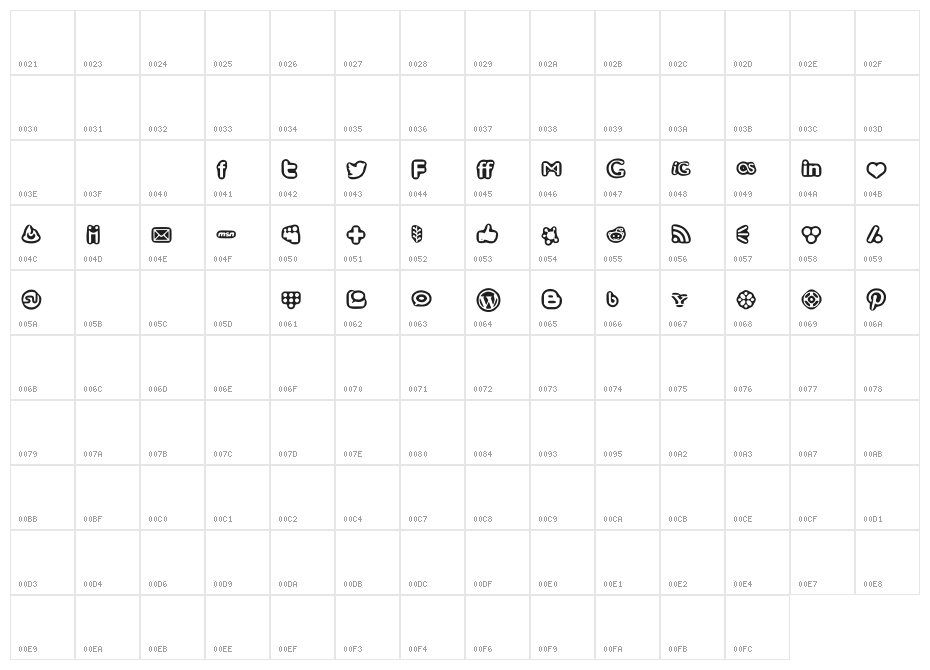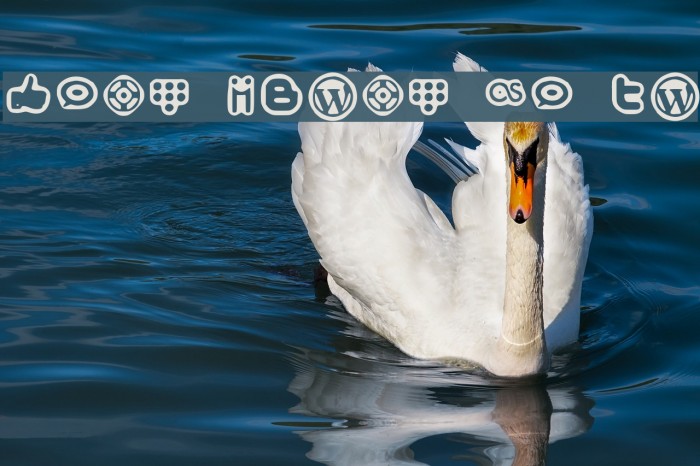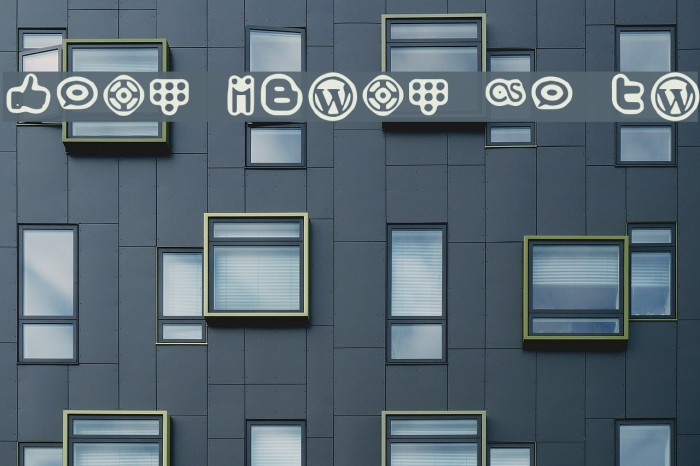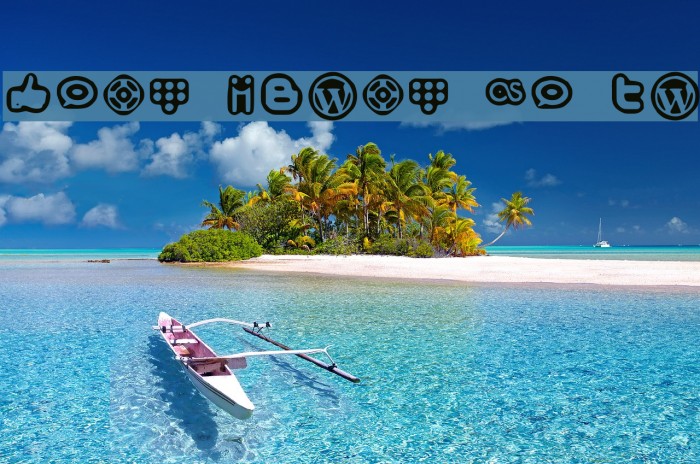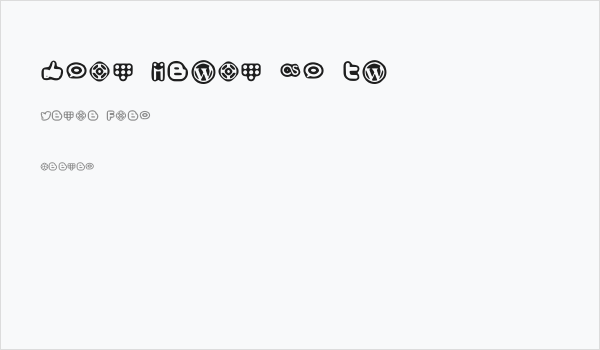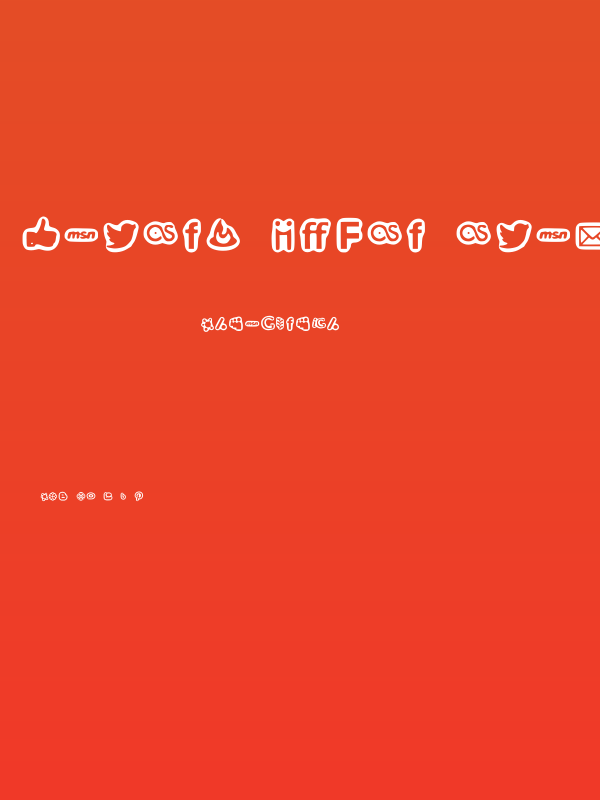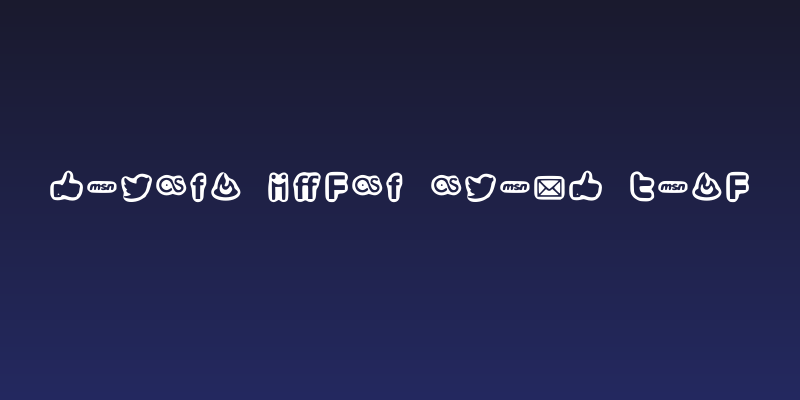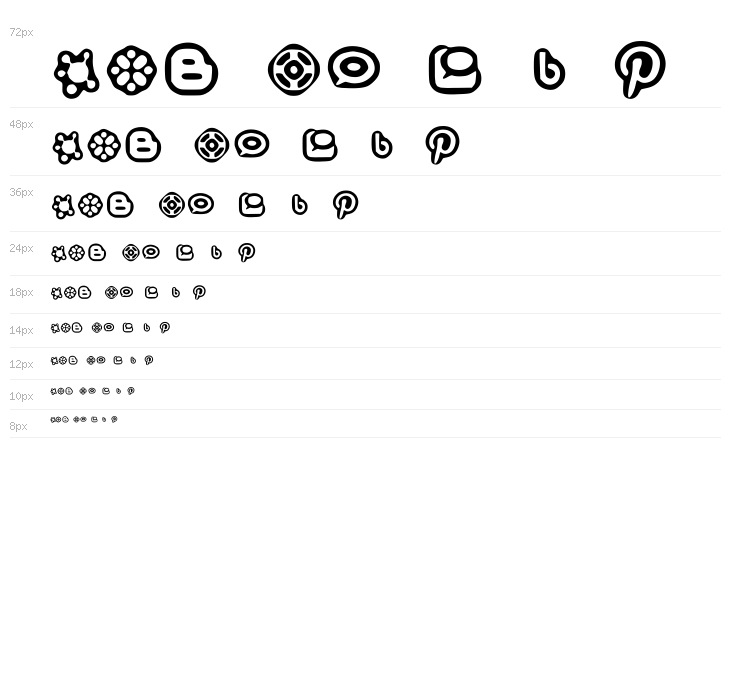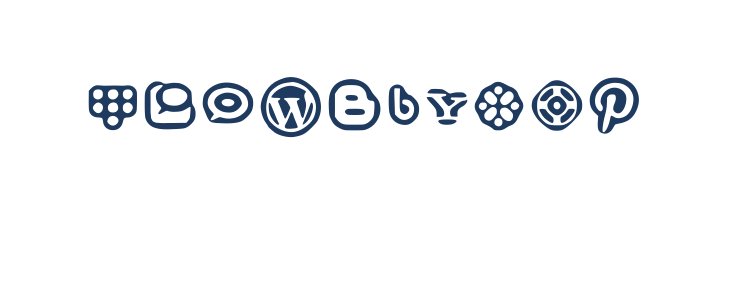
Social Media Icons Bold Font
Social Media Icons Bold Description
A bold, rounded decorative icon set representing various social media logos and symbols, each enclosed in a thick outline for high visibility and playful appearance.
| Overall Style | Decorative, Playful, Modern |
| Use Case | Icons, UI elements, Branding, Social media links |
| Proposed Projects | Social media graphics, website footers, app interfaces, digital marketing materials. |